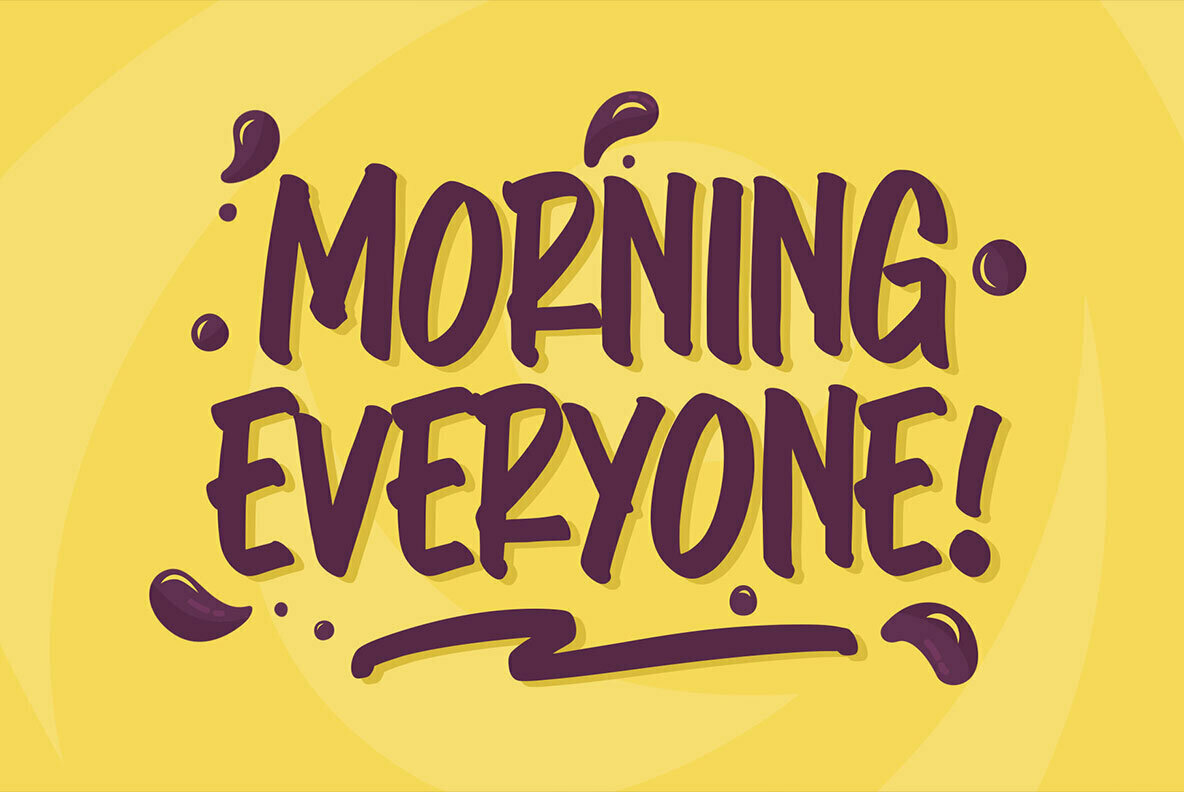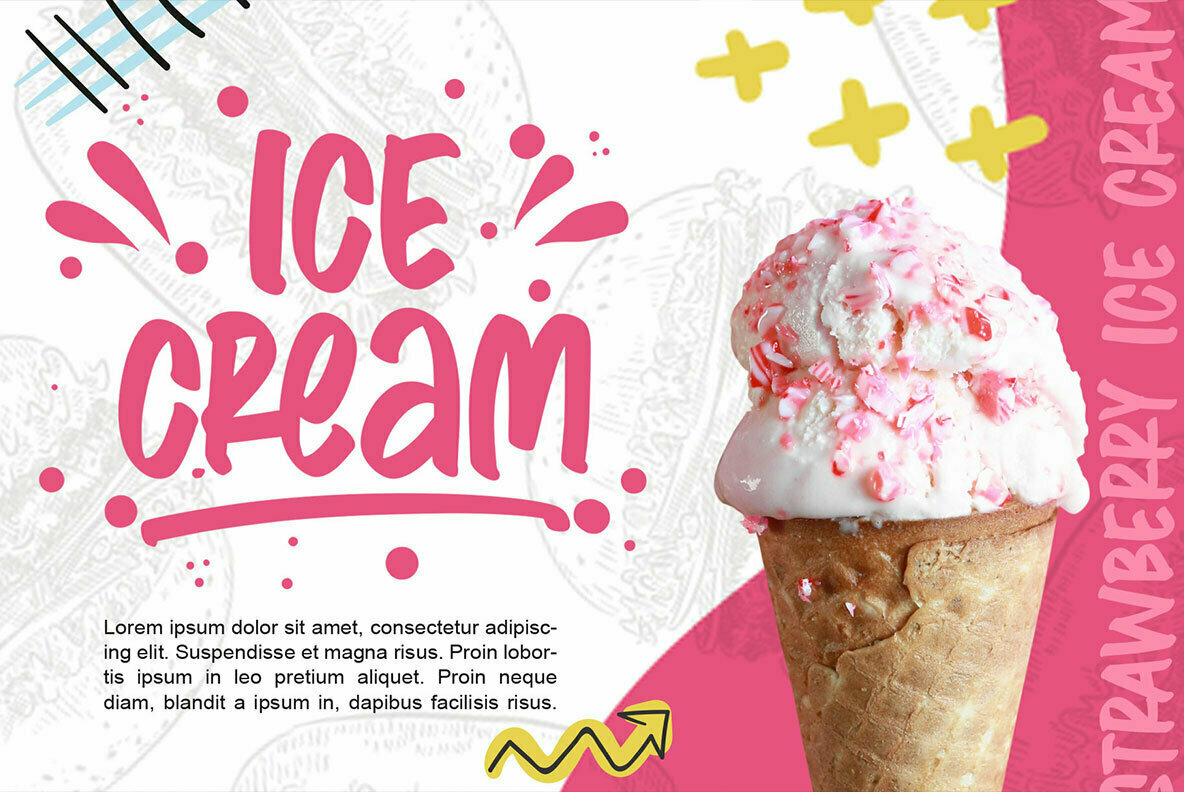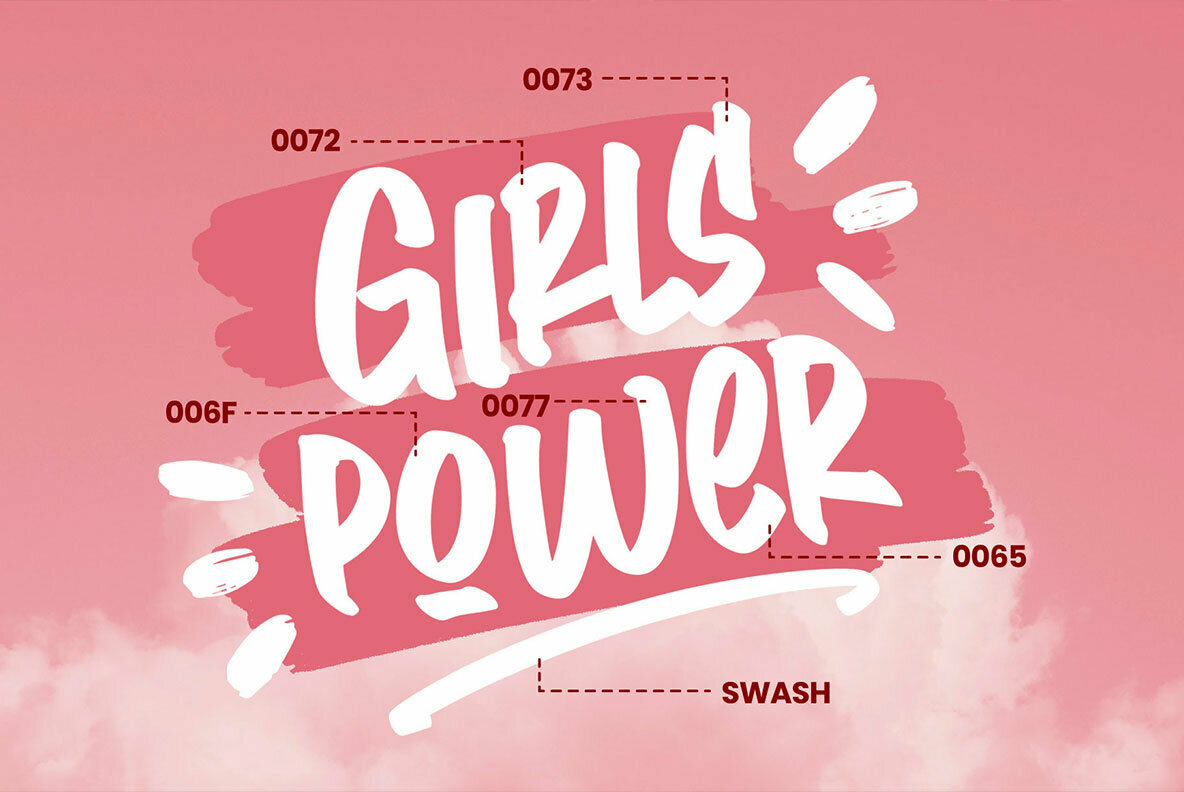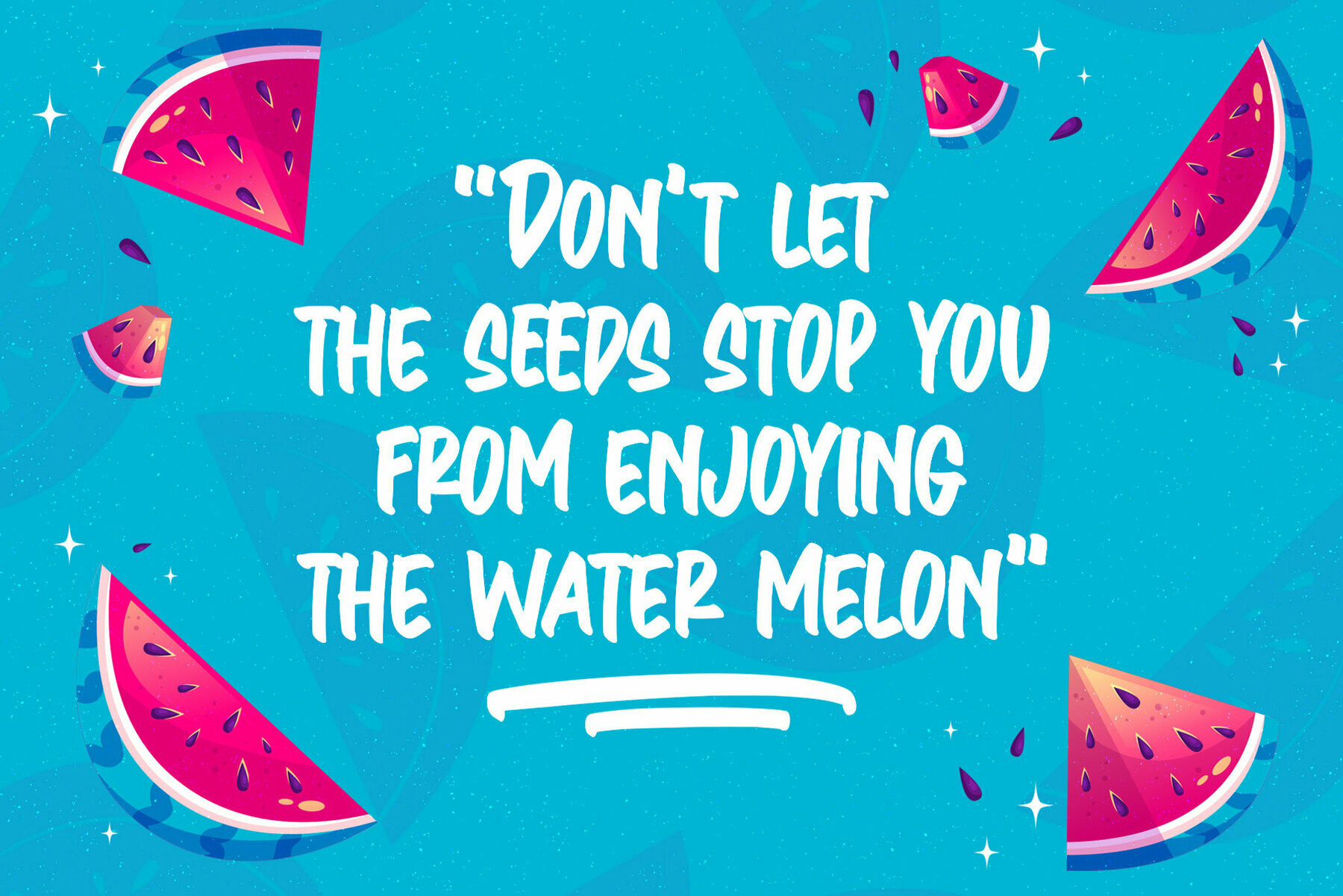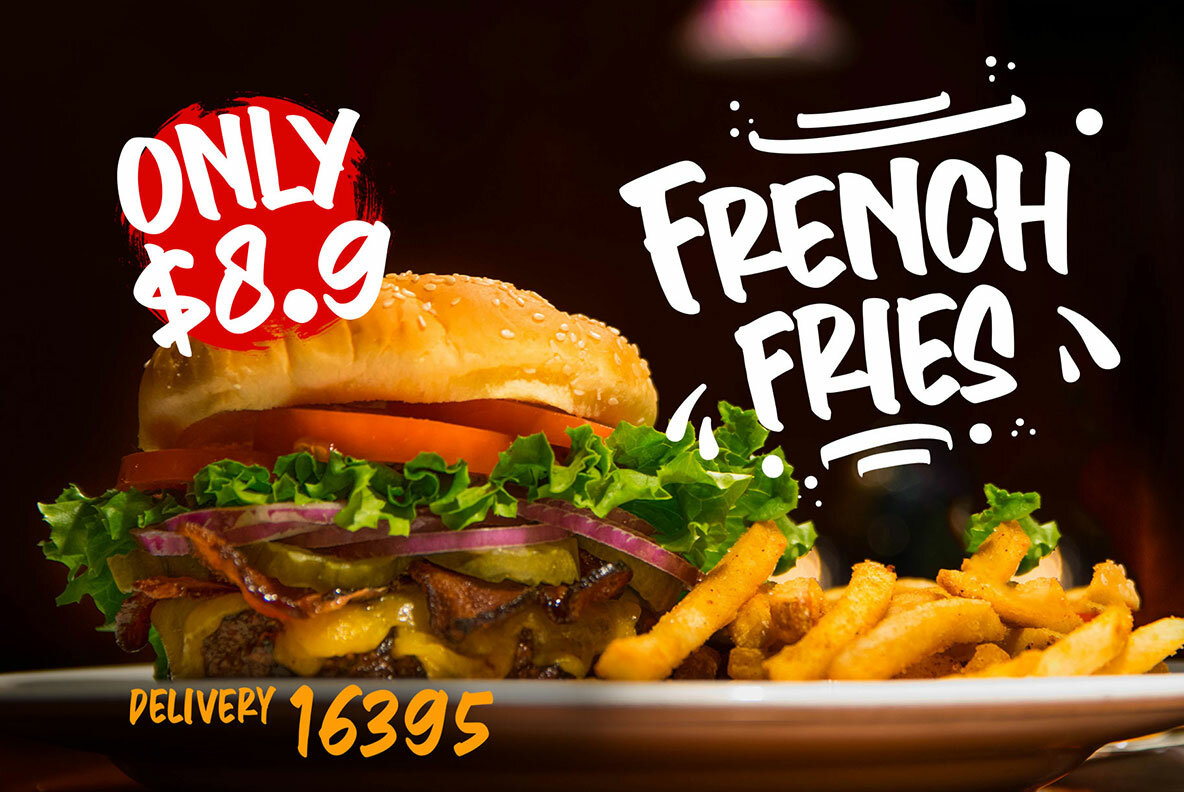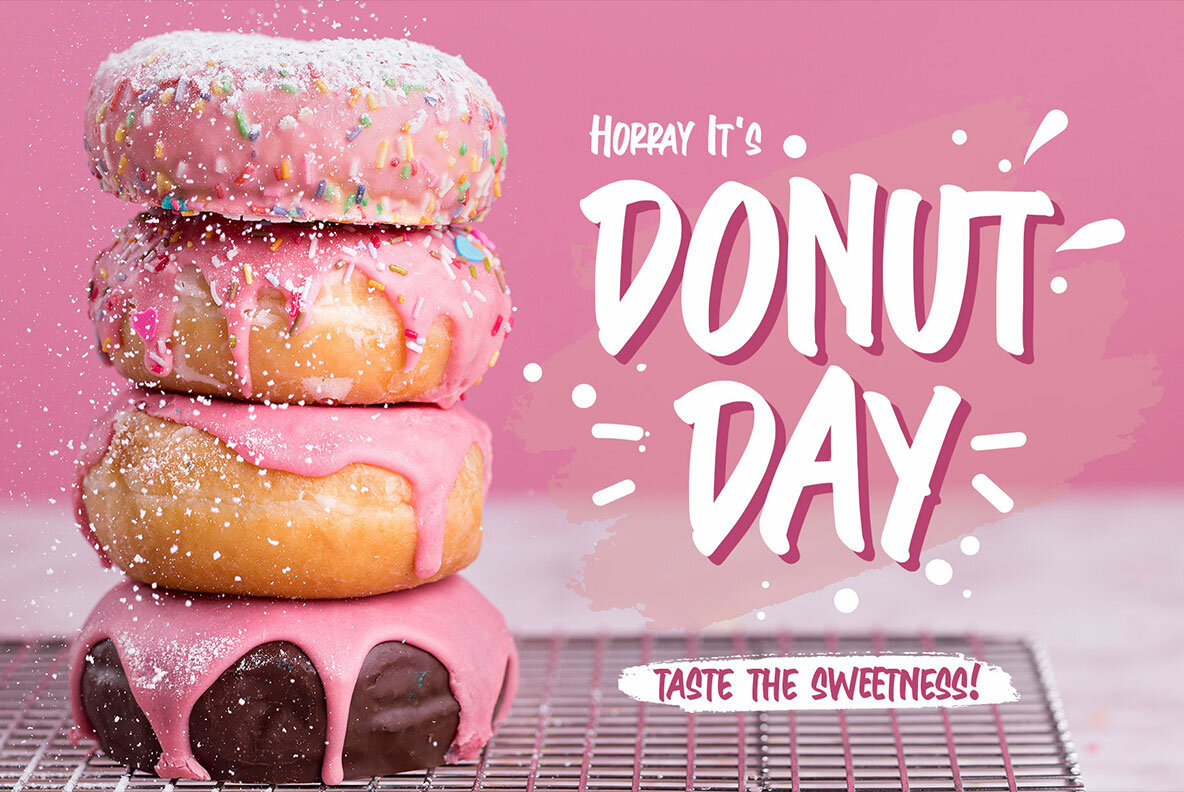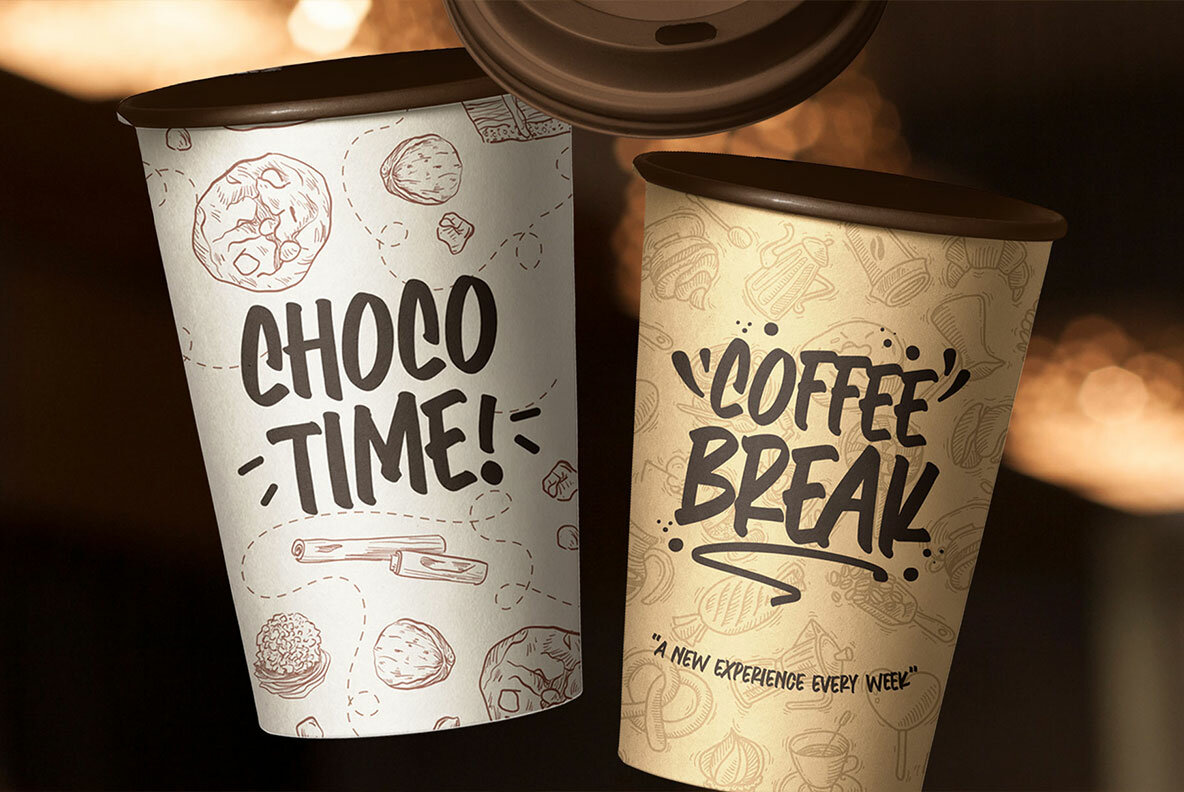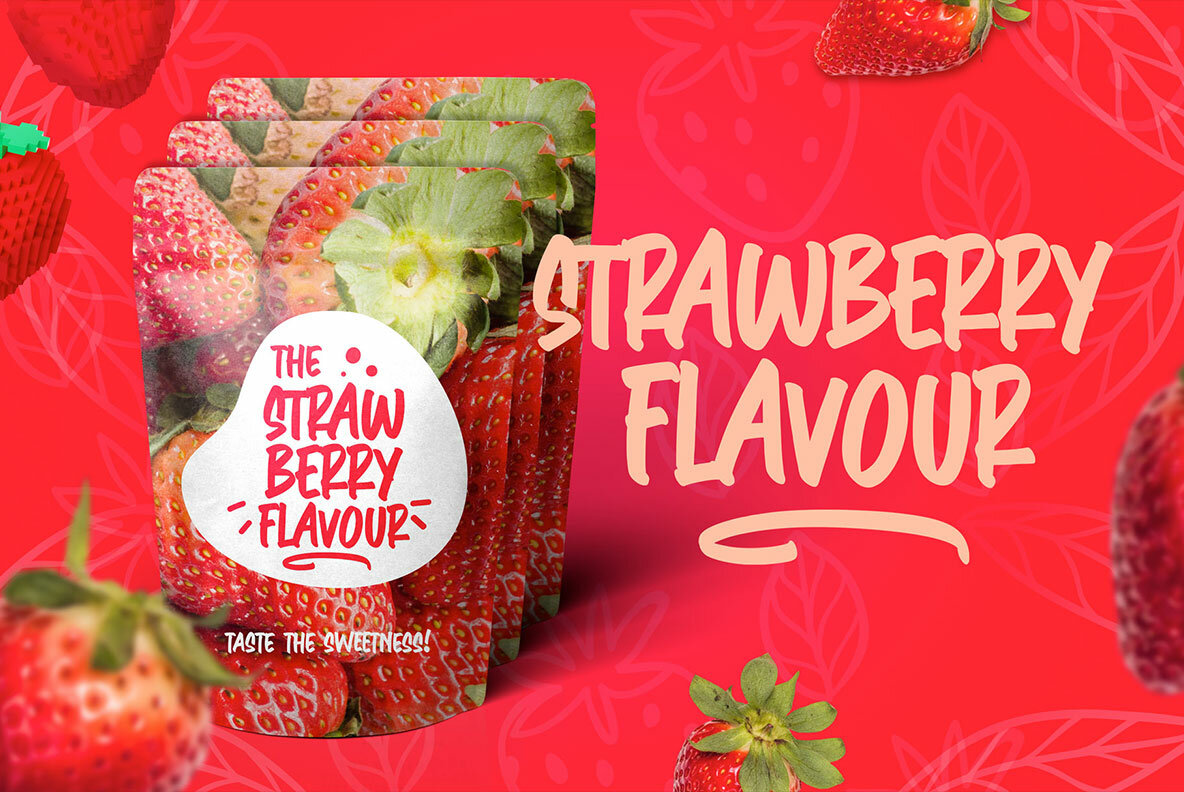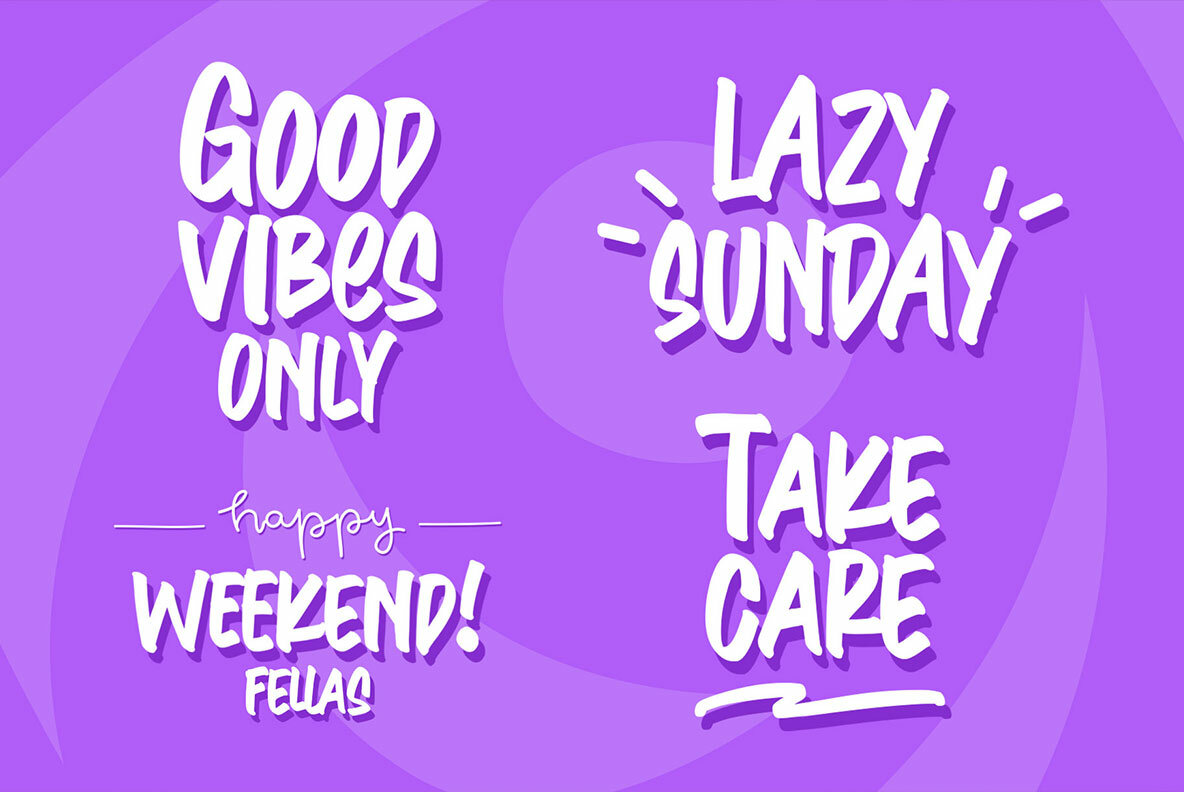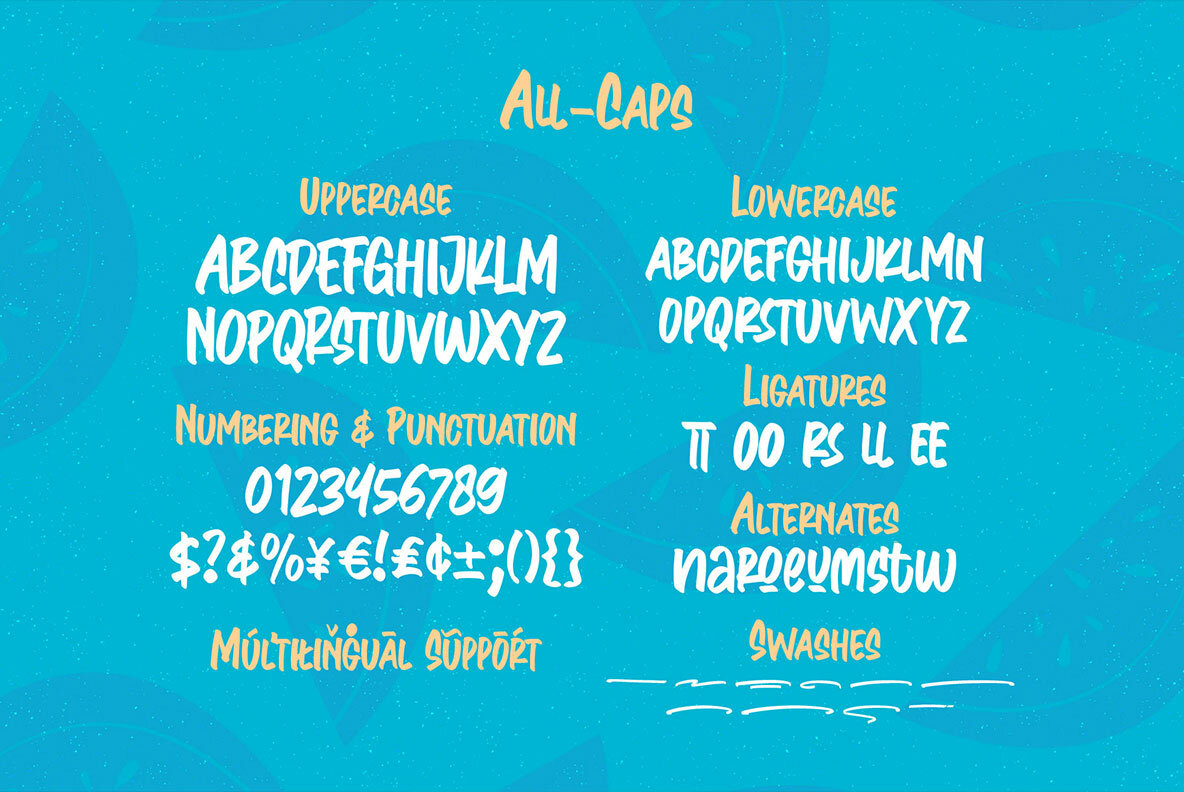
Komersie Font
Komersie Regular
Introducing Komersie, a lively marker font designed with natural brush strokes and a gentle slant. Its all-caps style, complete with small caps, alternates, and swashes, offers a handwritten charm that enlivens any design project. Ideal for engaging children's designs, captivating labels, eye-catching displays, and delightful packaging. Komersie adds a joyful touch that enhances the visual appeal of sales banners, posters, short quotes, and more.Komersie: A Whimsical Marker Font for Playful Creations